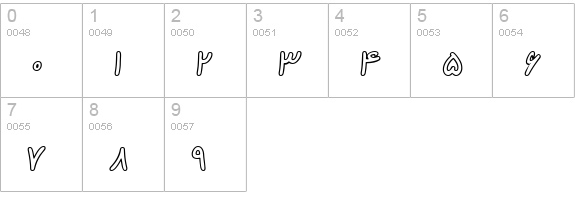
B Kamran Outline Font Details
B Kamran Outline is a modern and stylish font that exudes sophistication and elegance. With its clean lines and geometric shapes, this font is perfect for a wide range of design projects, from logos to posters to social media graphics. The outline style adds a unique touch to any design, making it stand out from the crowd. The best part about B Kamran Outline font is that it is completely free to download at FontsMarket.com. This means you can easily access this beautiful font and incorporate it into your projects without any cost. Whether you are a designer looking for a fresh font to add to your collection or someone in need of a sleek typeface for personal projects, B Kamran Outline is the perfect choice. Download it today and elevate your designs with this stunning and versatile font.